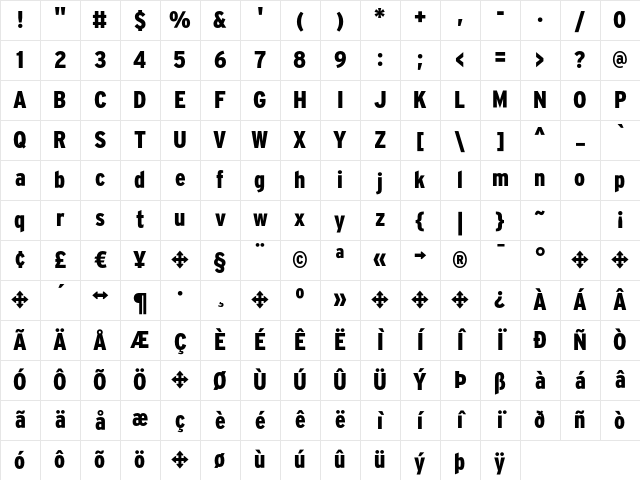
InterstatePlus Black Cond
Style: Black Cond
Complete InterstatePlus Black Cond glyph index. Displaying only characters natively supported by InterstatePlus Black Cond font.
Design Context for InterstatePlus
InterstatePlus is a composed and adaptable typeface that performs quietly and consistently across a wide range of design contexts. Its narrow stance lets it pack a punch even in space-constrained designs.